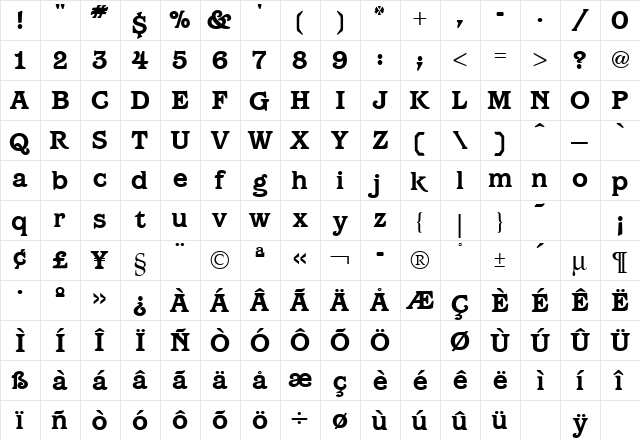
Barcelona Bold
Design Context for Barcelona Typeface
Barcelona is a composed and adaptable typeface that performs quietly and consistently across a wide range of design contexts. Its bold stroke weight gives it real presence on the page.